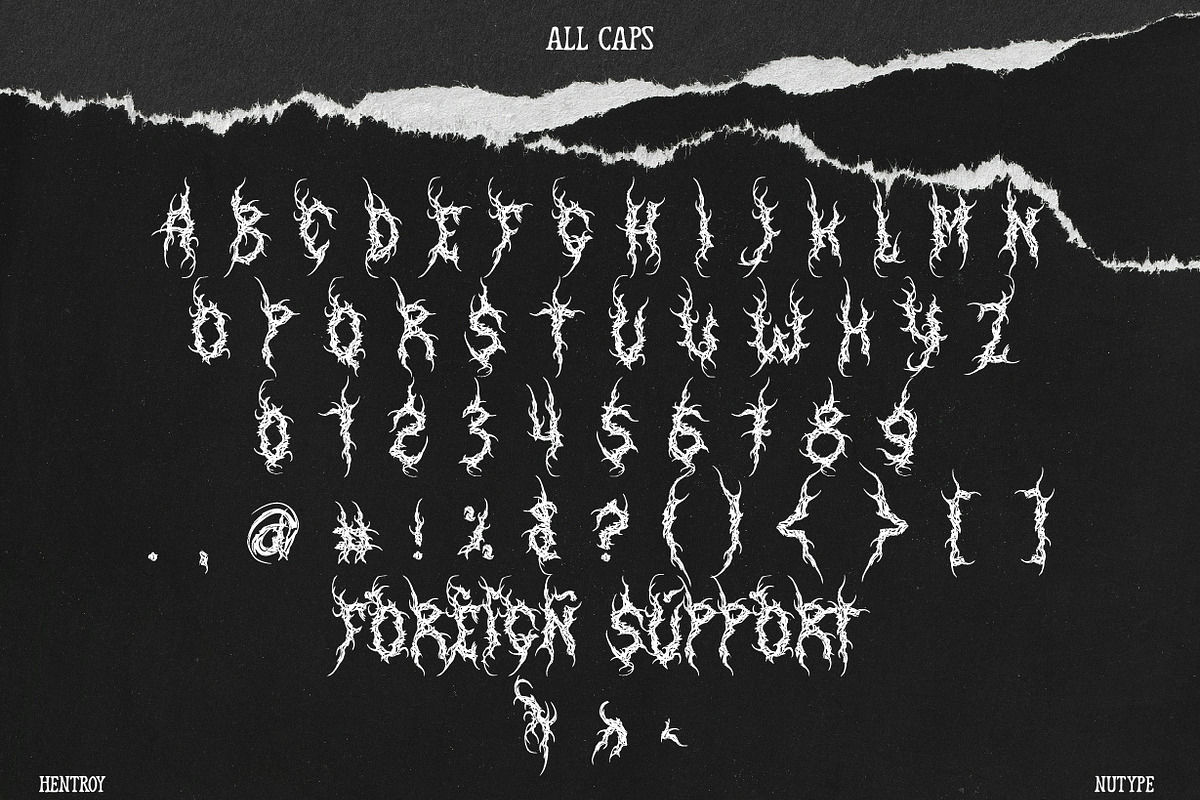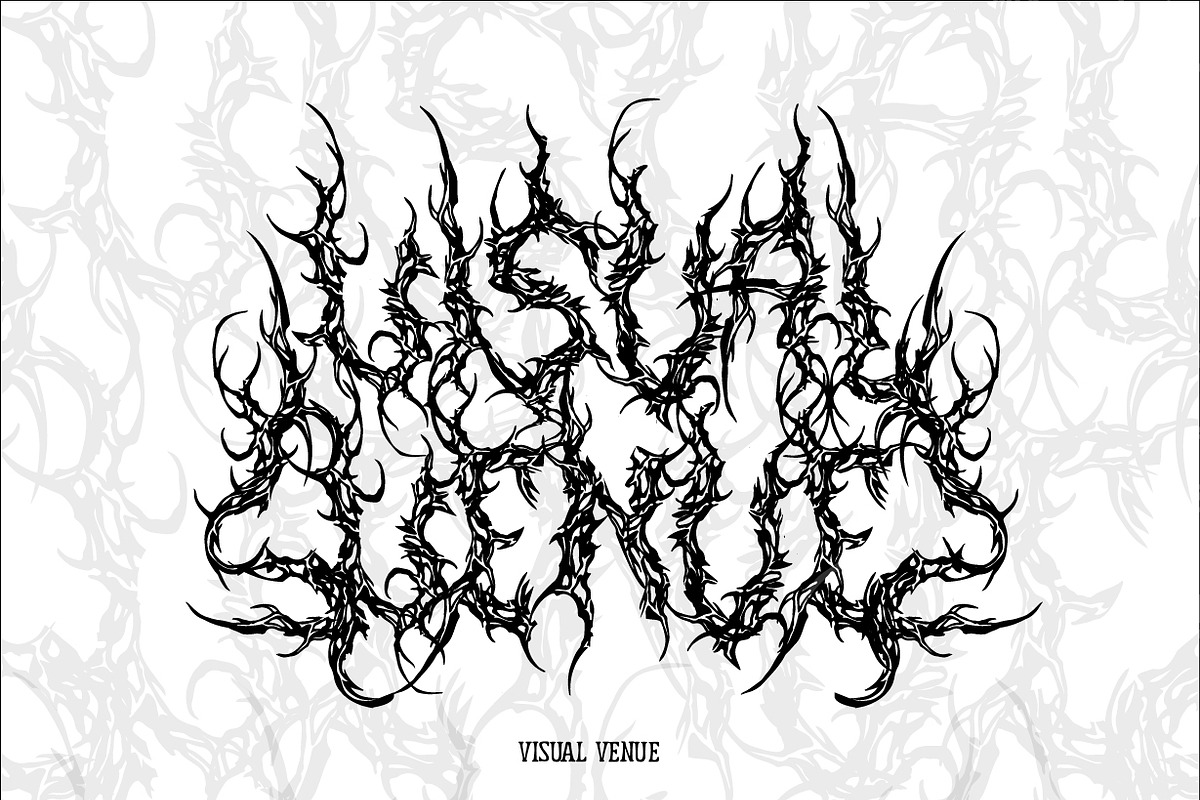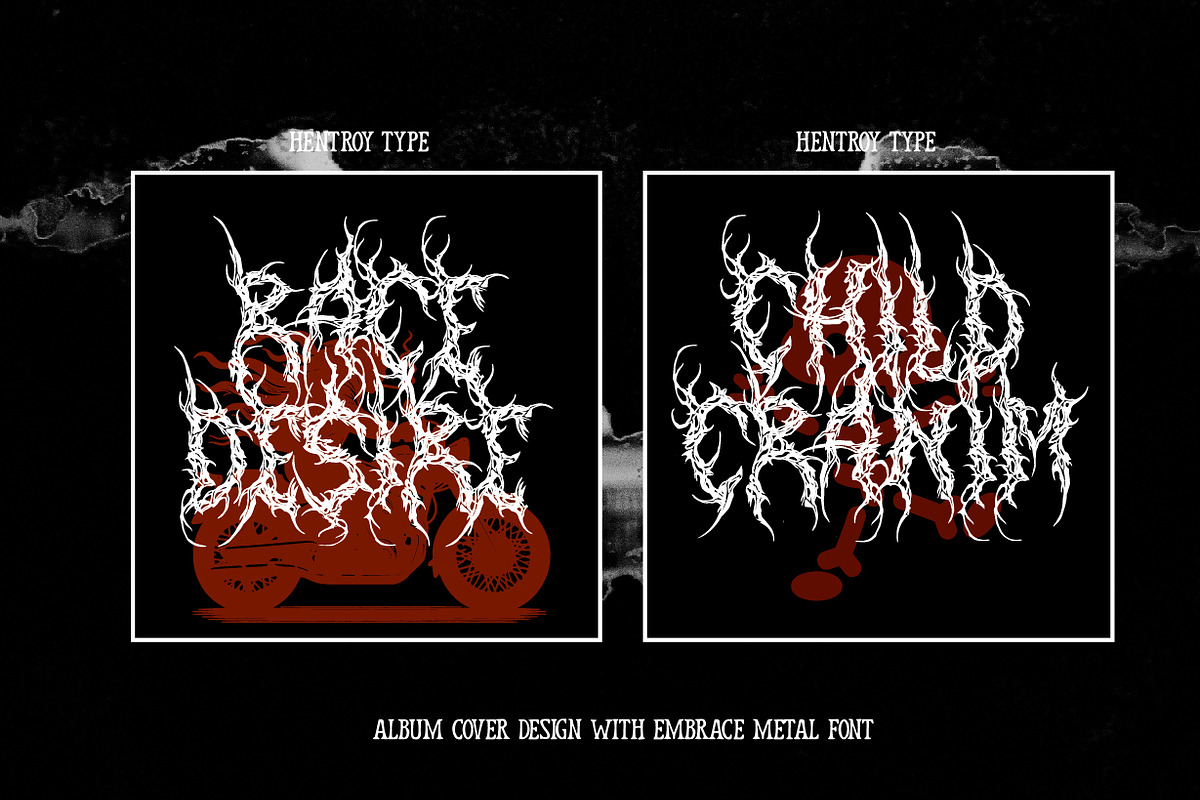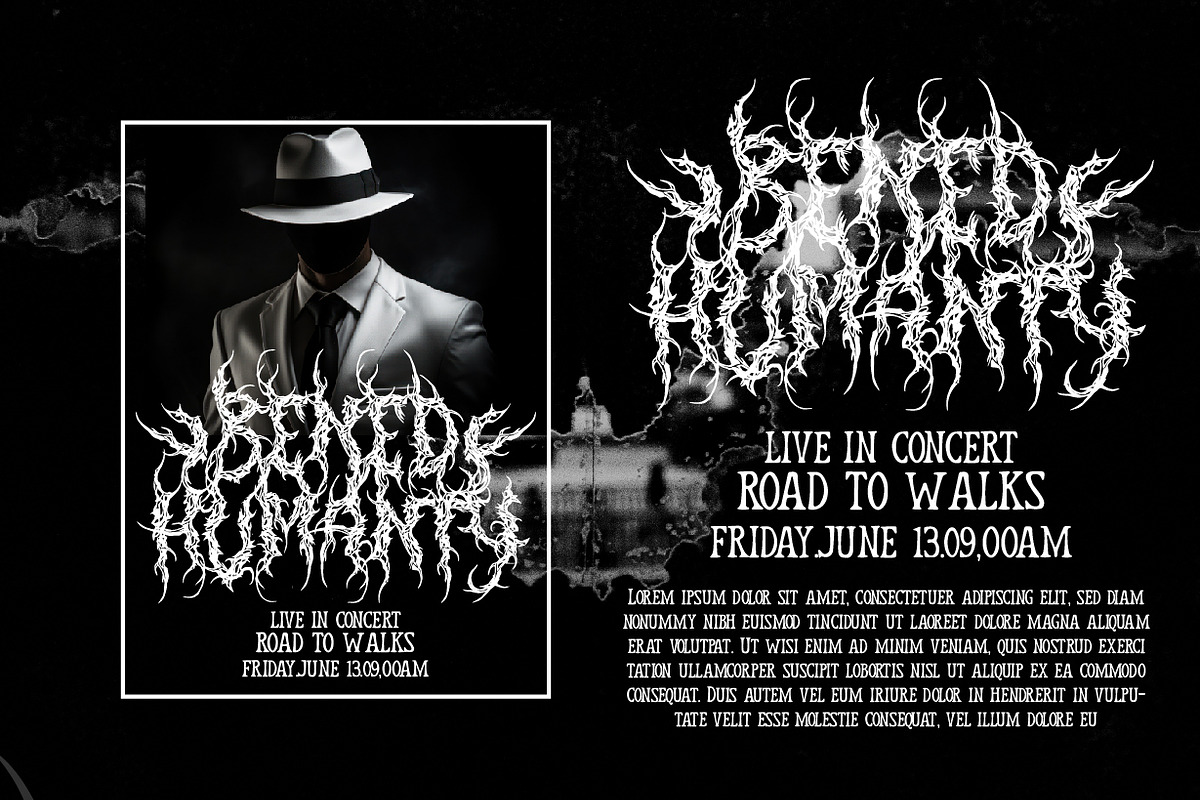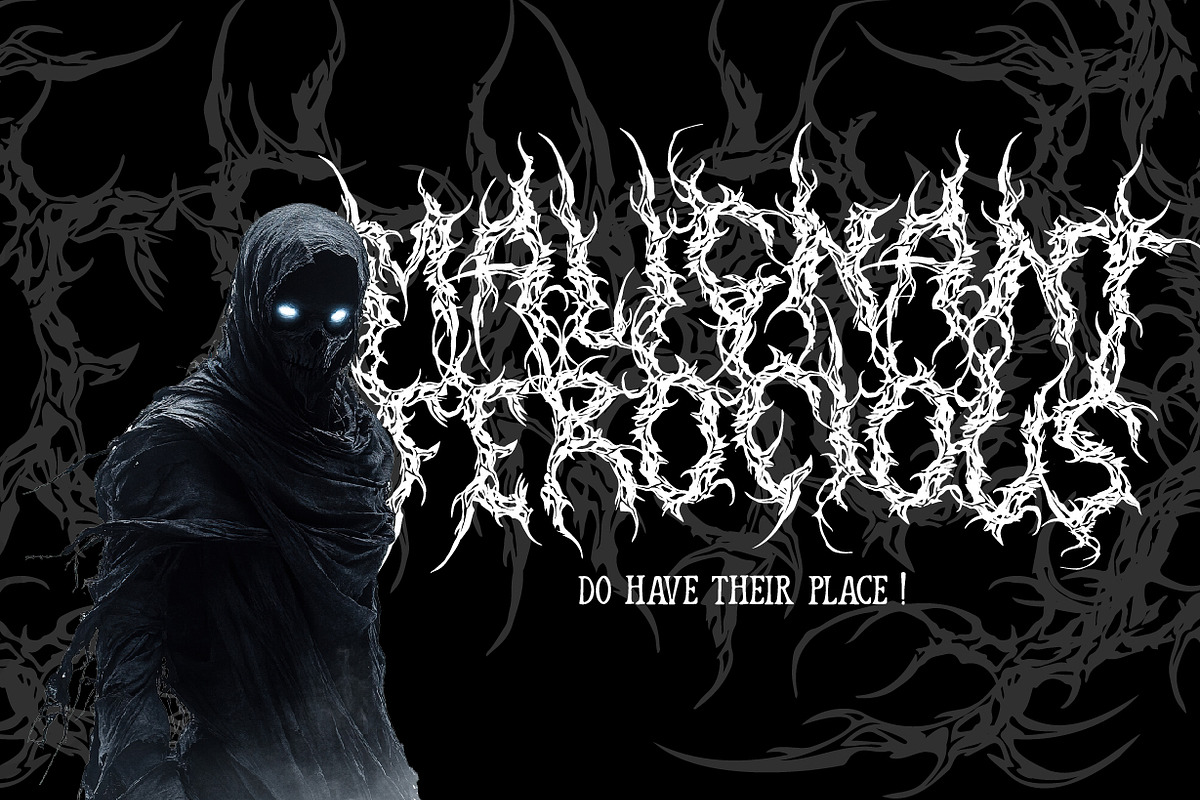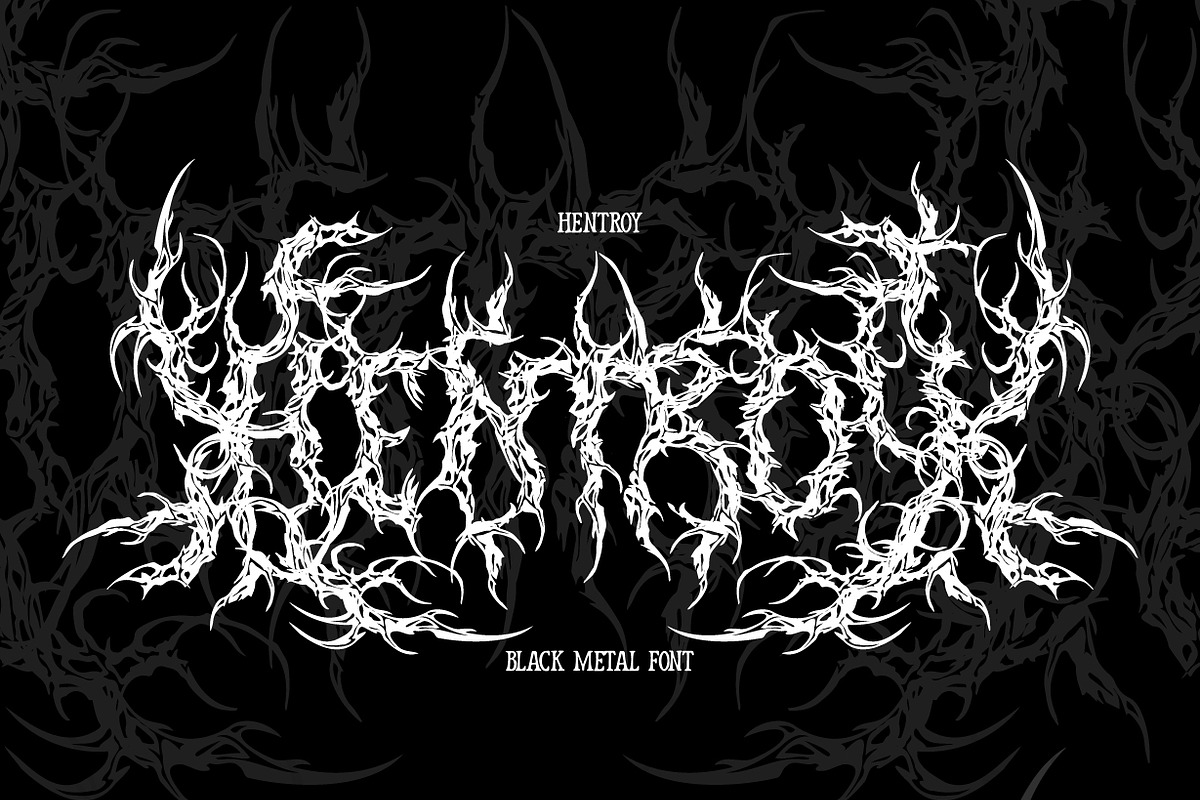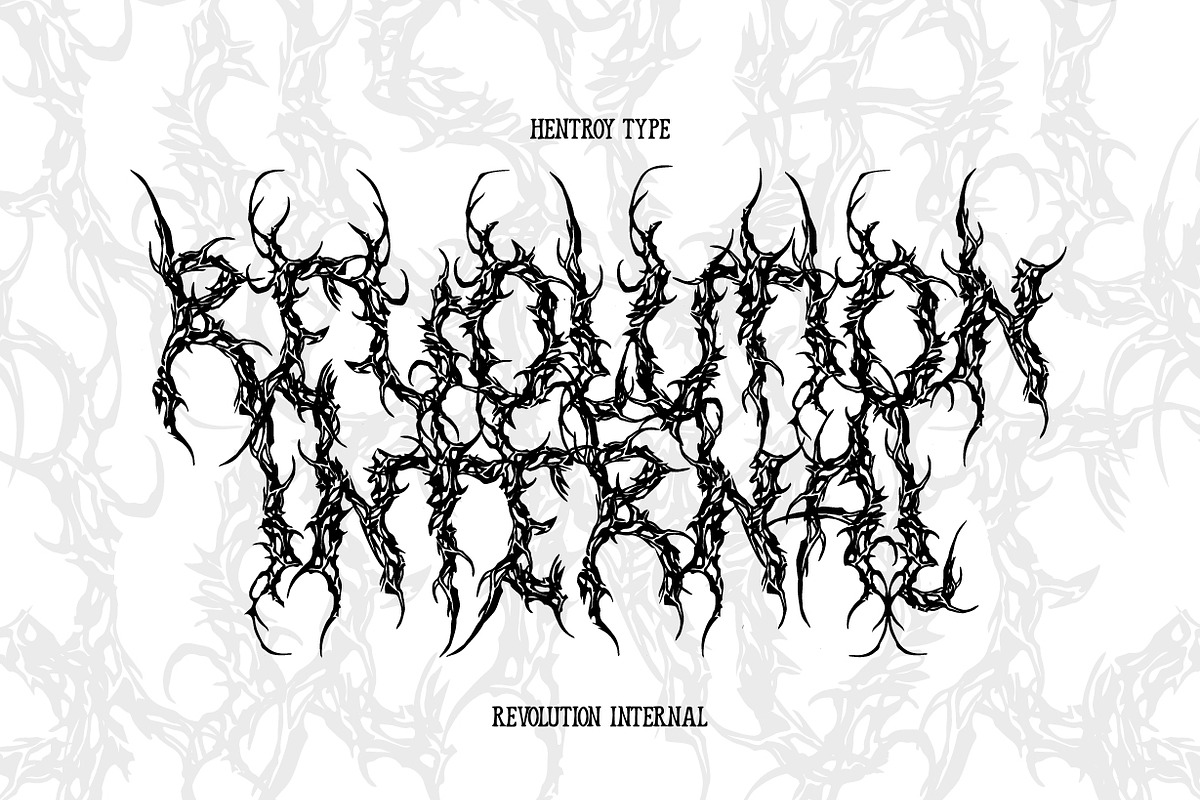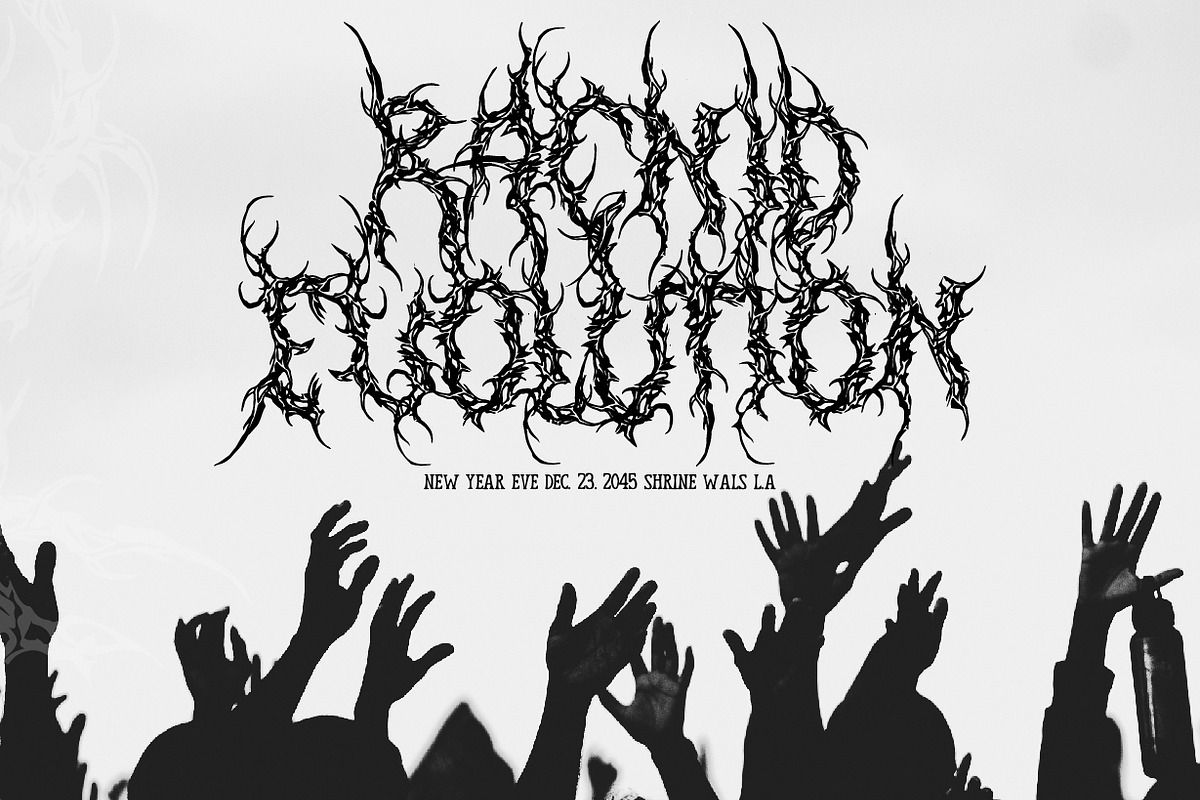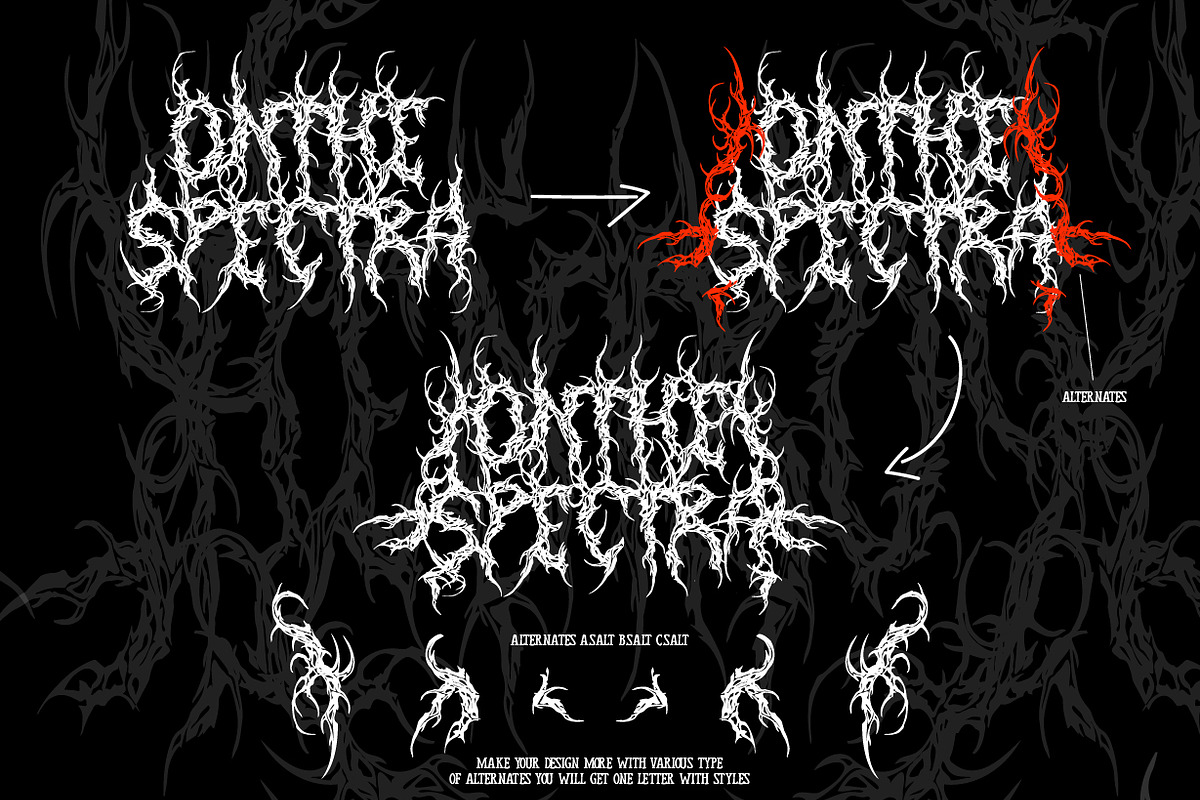
Hentroy - Black Metal font
Hentroy has a strong and aggressive look with sharp and bold lines. This font has hard corners and is slightly inclined to the vertical, giving a sharp impression accompanied by additional ornaments that you can customize yourself. can be applied such as, product design group names, quotes, etc.
FEATURES;
Capital letters,
Supports foreign languages, numbers, and punctuation.
Ornaments.